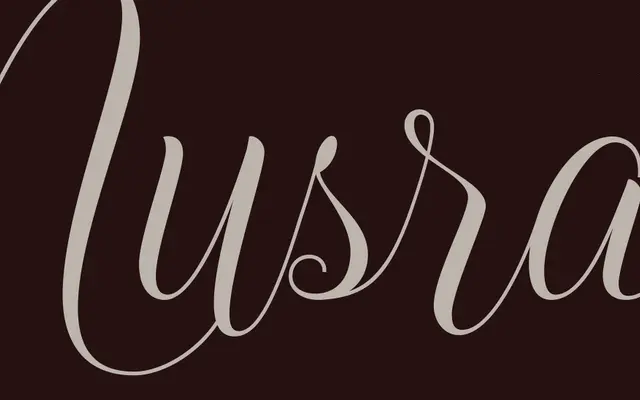
A single-weight script from Indian Type Foundry, sitting within their broader collection of calligraphic and handwritten display faces.
Nusrat is a script typeface offered as a single Regular style, priced within ITF's mid-range script offerings. The page provides limited technical detail, but its placement alongside brush and pen scripts such as Brushware and Spencerio suggests a handwritten or calligraphic character suited to display and short-form typesetting. Only Latin script coverage is indicated.
ITF classifies Nusrat under the Script category; the page offers no further subcategory detail, but its grouping alongside brush and pen scripts suggests a calligraphic or handwritten style.